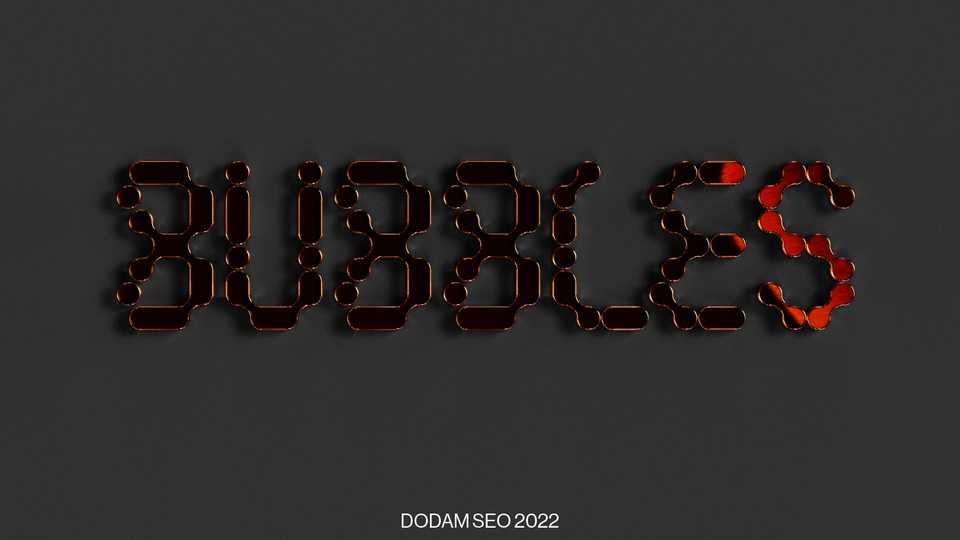
Download Bubbles font, a unique display typeface inspired by cute bubbles and human bones. It consists of 26 Latin uppercase letters and numbers. Feel the round cuteness of bubbles.
Designer: Dodam Seo